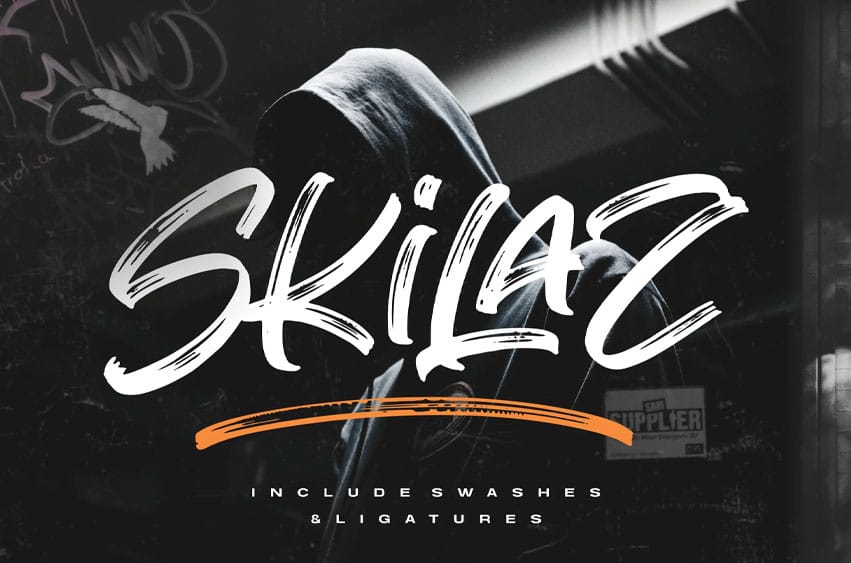
Skilaz Font
Skilaz Font is a bold and fearless marker brush font built for street-inspired designs and modern creatives. With its sharp strokes and dynamic energy, Skilaz perfectly captures the raw expression of graffiti and street culture. Each letter is handcrafted with rough marker texture, giving it an authentic, rebellious personality. Whether used for fashion branding, music covers, skateboard designs, or digital posters, Skilaz commands attention with its urban confidence.
The font includes uppercase, lowercase, numbers, punctuation, ligatures, and stylistic swashes for extra motion and energy. It’s ideal for impactful designs that demand strong visual identity — from fashion statements to bold marketing visuals. Available in OTF, TTF, and WOFF formats, Skilaz gives you the flexibility to bring street attitude into your design universe.